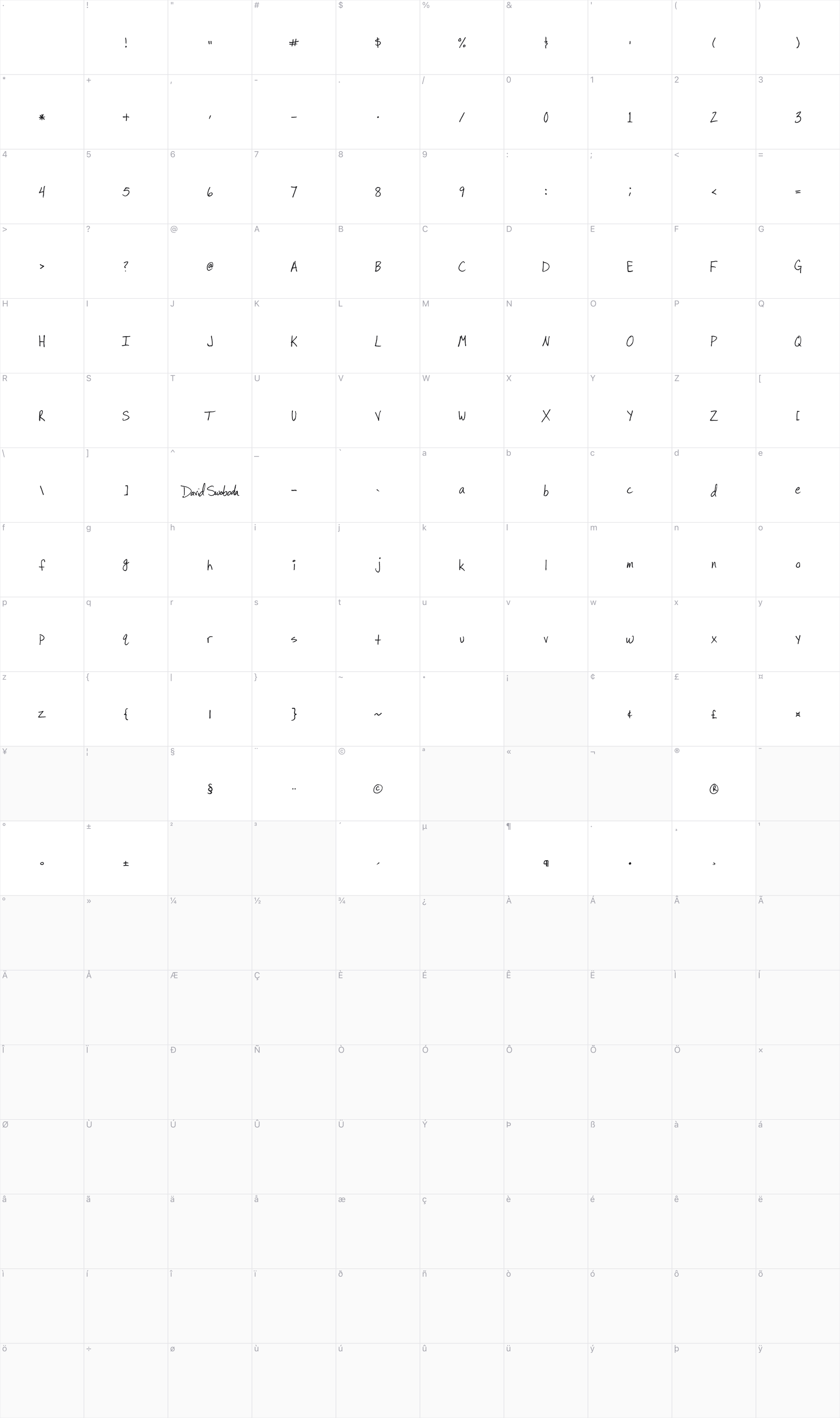
Sugarpie
Sugarpie is a casual handwritten script drawn from a real hand sample, scanned and digitized via Scanahand. Its thin, slightly wobbly strokes and natural baseline irregularity give it a genuine personal feel rather than a polished calligraphic one. Good for brands that want to feel approachable, homemade, or personal.